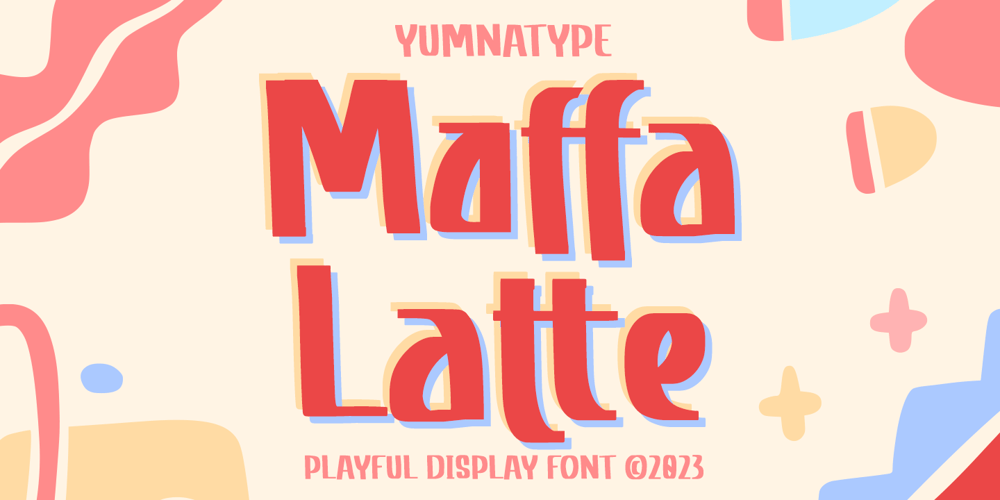
Maffa Latte Font Family was designed by Donis Miftahudin and published by Yumna Type. Maffa Latte contains 2 styles and family package options. Sometimes it is a boring, tiring process to find a proper font for your project, and what is worse is that the font type you find has no specific character preventing you from delivering messages effectively. For that reason, we have the best solution to your problems.Maffa Latte is a perfect display font for delivering your messages on every design you are working on. Such a display font generally shows you a unique, funny, fun impression for any necessities, increases the nuances of professionalism and attractiveness to the product or brand promoted. The right use of this font makes the design more interesting and fun to cheer up customers. This font, with a clipart as an extra bonus, is legible due to its simple forms and proportions along with high contrasts. You can enjoy the available features here as well.Features: Multilingual Supports PUA Encoded Numerals and Punctuations Maffa Latte fits best for various design projects, such as brandings, posters, banners, headings, magazine covers, quotes, invitations, name cards, printed products, merchandise, social media, etc. Find out more ways to use this font by taking a look at the font preview.Thanks for purchasing our fonts. Hopefully, you have a great time using our font. Feel free to contact us anytime for further information or when you have trouble with the font. Thanks a lot and happy designing.